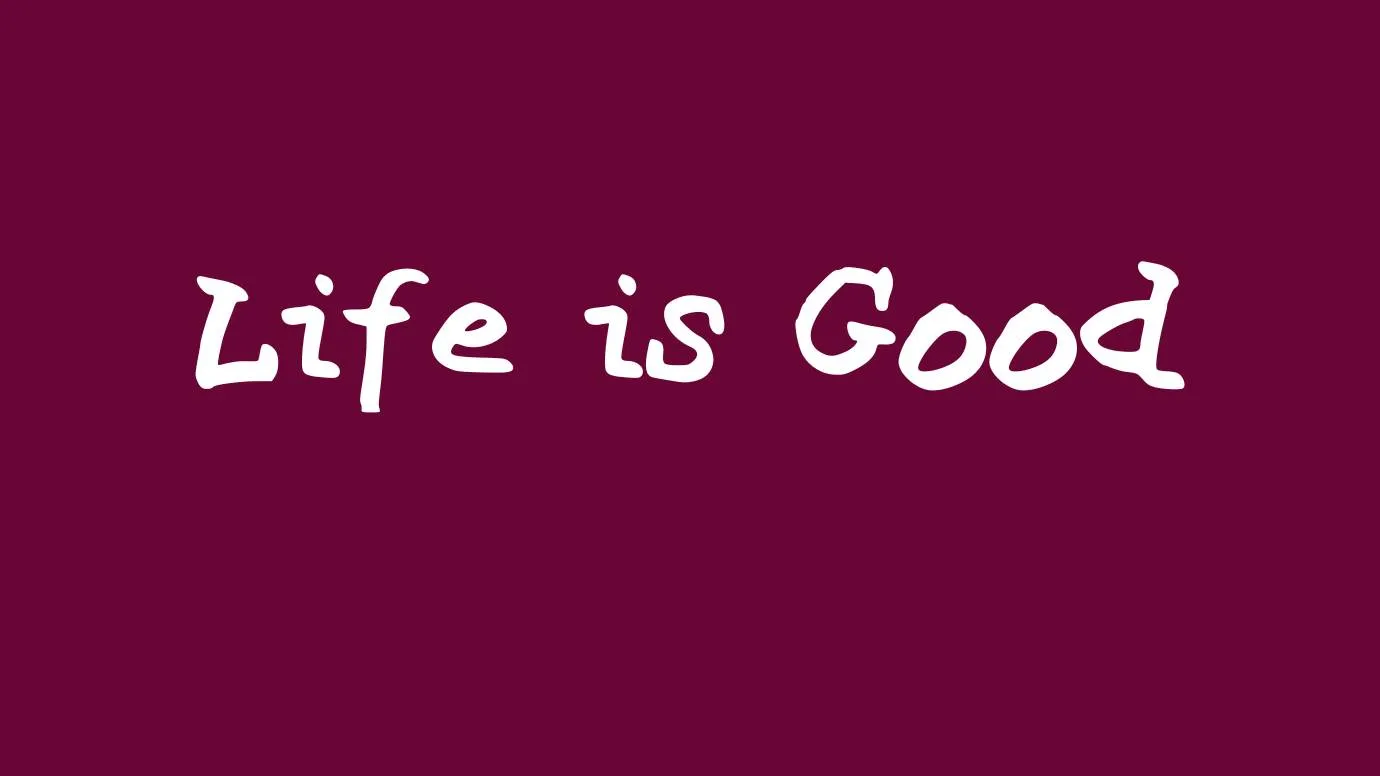
Life is Good Font Family is very nice and friendly you can use it for so many projects related to kids as well as for elders. It supports file formats True Type Font and Open Type Font so if you want to use it on your projects you can easily download it on all operating systems. You can convert your simple text into this font by copying and pasting your data in the online generator tool which also supports this font.
It has amazing features so you can make so many interesting projects by using this font. It contains 143 characters, 112 glyphs, and 1000 units per Em. The weight of the font and the width of the font are medium (normal). Unicode supported BMP only. Languages supported Latin and Symbols.
Features of Life is Good Font
- This font is good for making so many different projects. You can make attractive book covers for kids, school bags, and stationery items.
- It can also be used for making greeting cards, birthday cards, or any other invitation cards to give a very attractive look. To make different types of graphic designs by using Adobe Photoshop you can utilize this font as well.
- This font is good for both print and digital media. You can use it for printing T-shirts, mugs, and other fabrics like pillows, bed sheets, and much more.
- You can also use this font for making website designs and print it on banners, posters, hotel menus, brochures, and Home Décor. It is also good for making attractive titles and logos for different brands or organizations.
Type | Script |
Who designs Life is Good Font?
This amazing font was designed by CR8Type Font. You can make so many amazing projects by using this font.